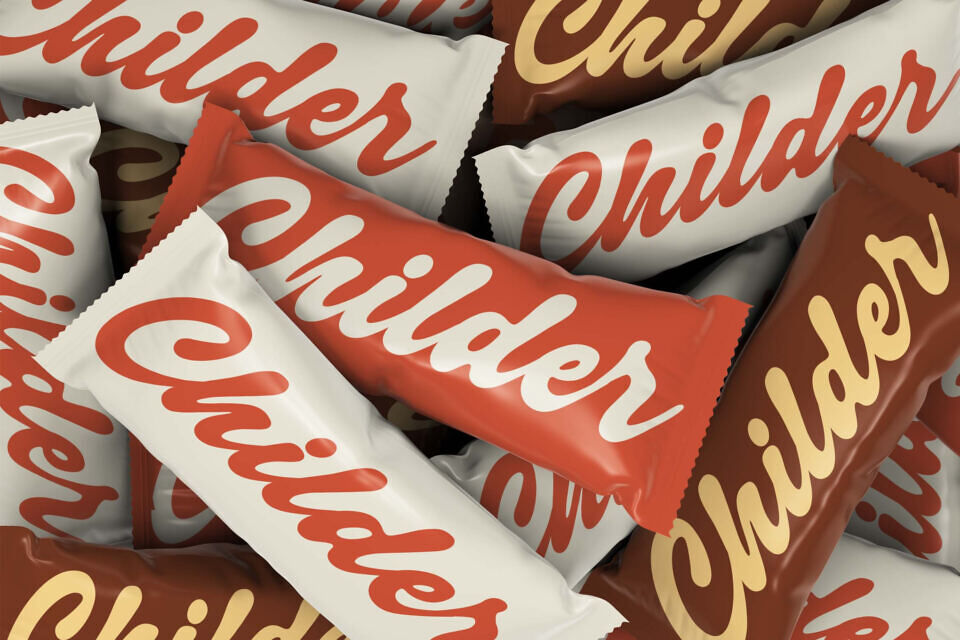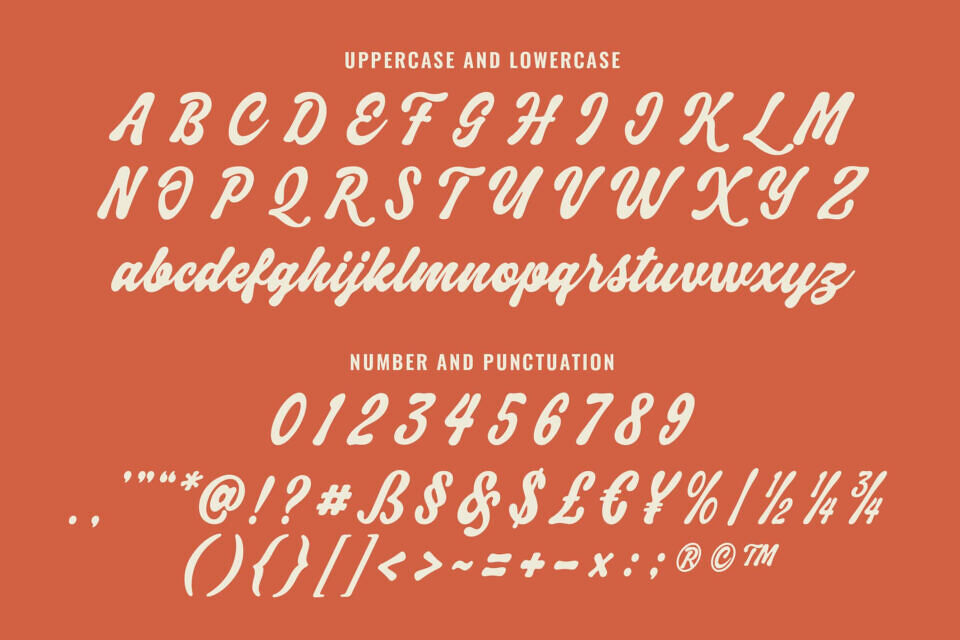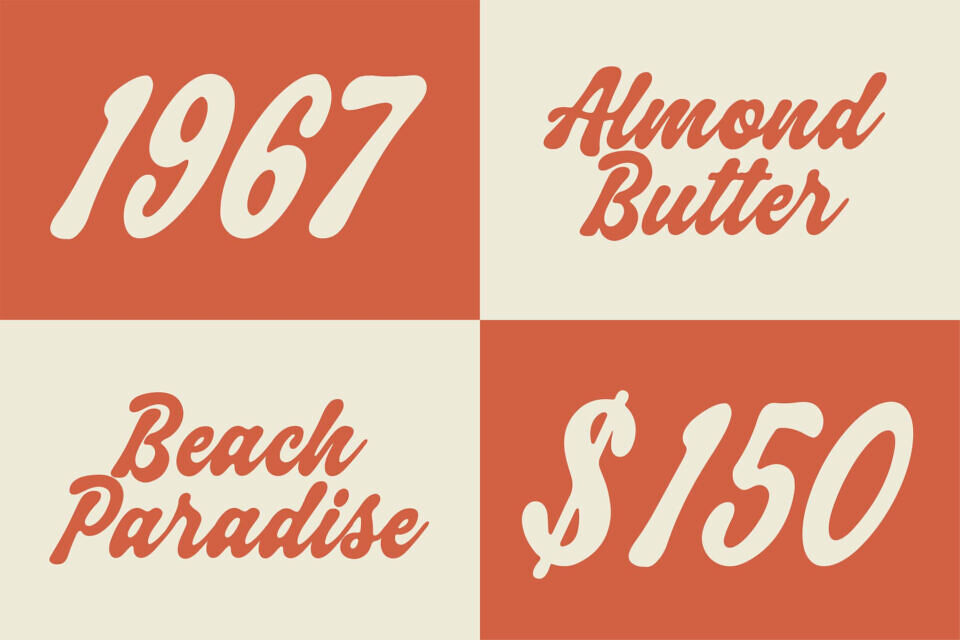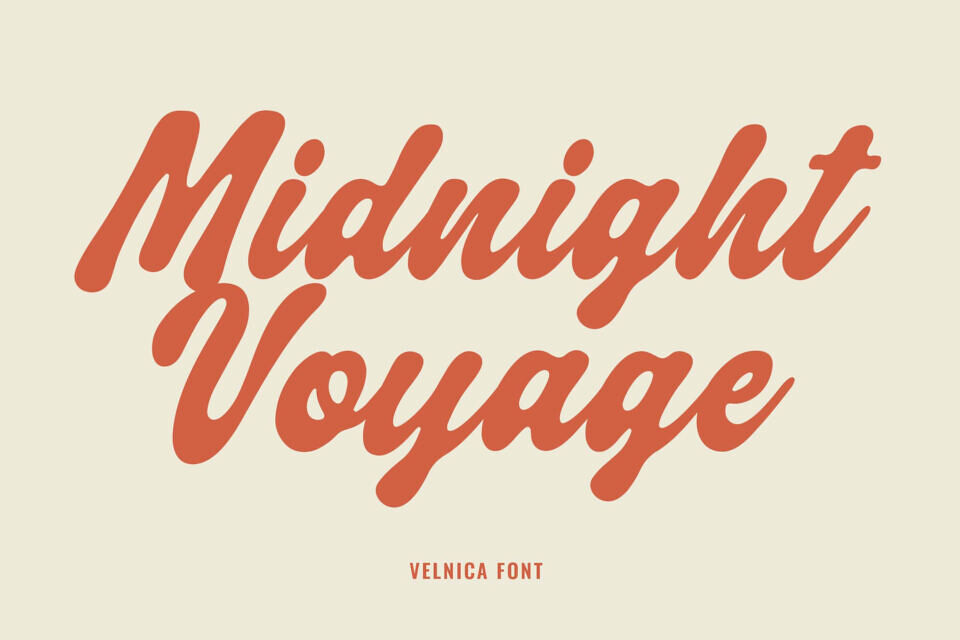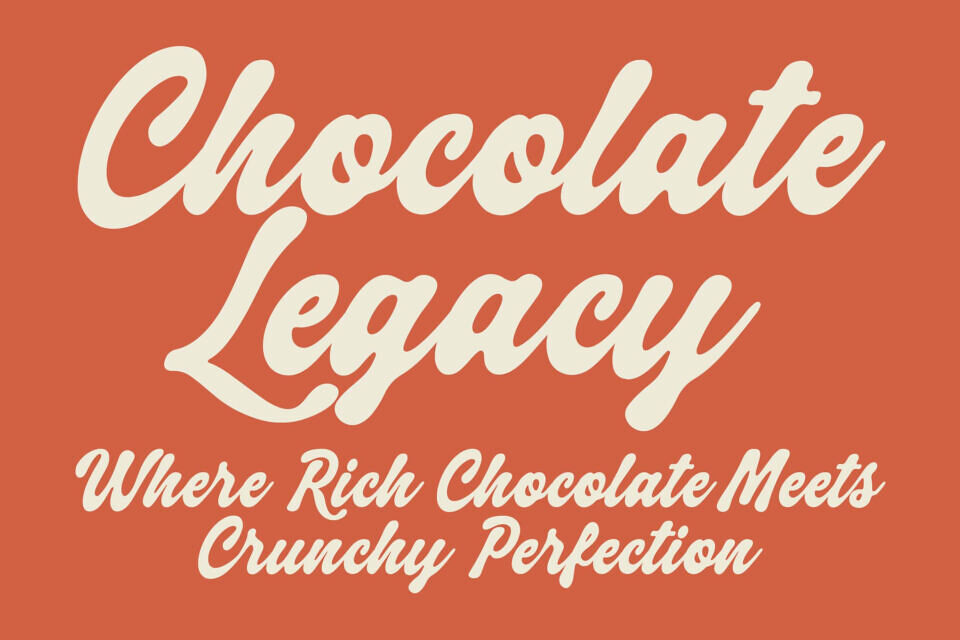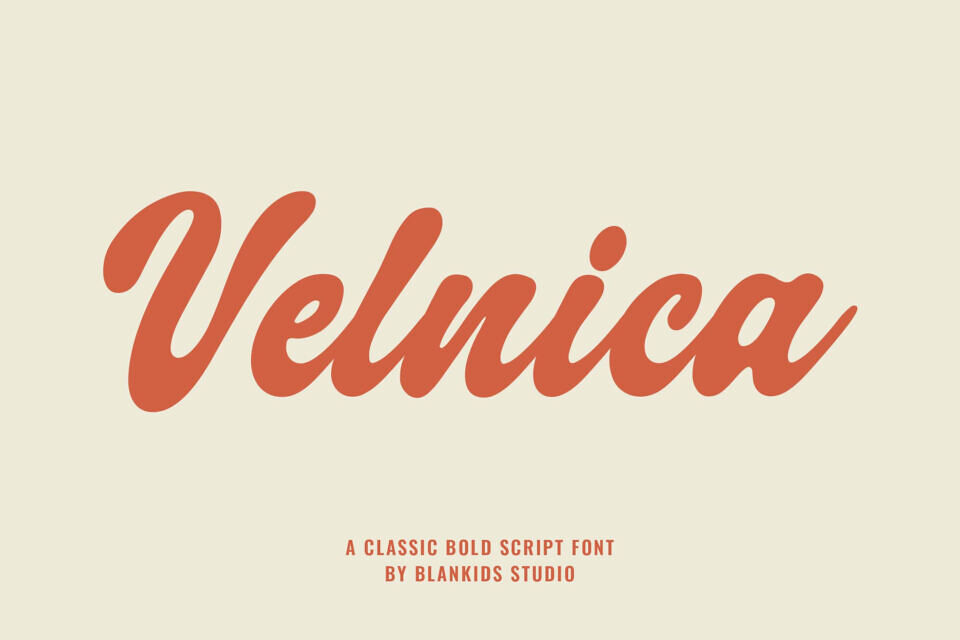
Velnica Font
Velnica is a classic bold script font that blends smooth curves with a confident retro attitude. Designed for creators who want a warm, handcrafted feel, Velnica brings a perfect balance of boldness, elegance, and vintage charm to any project.
Velnica is ideal for branding, logo design, headline lettering, product packaging, social media posts, merchandise, and advertising visuals. Every letter is crafted to look natural and expressive, making your typography stand out effortlessly.